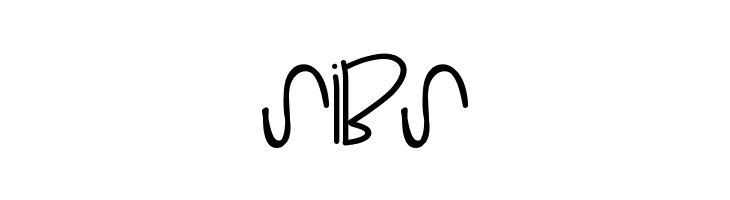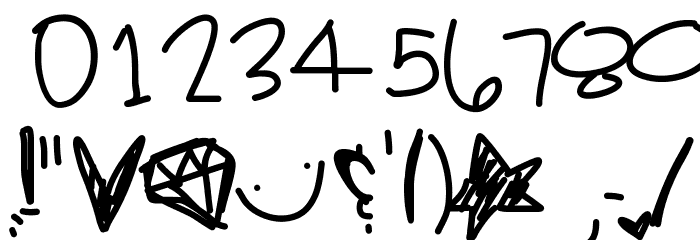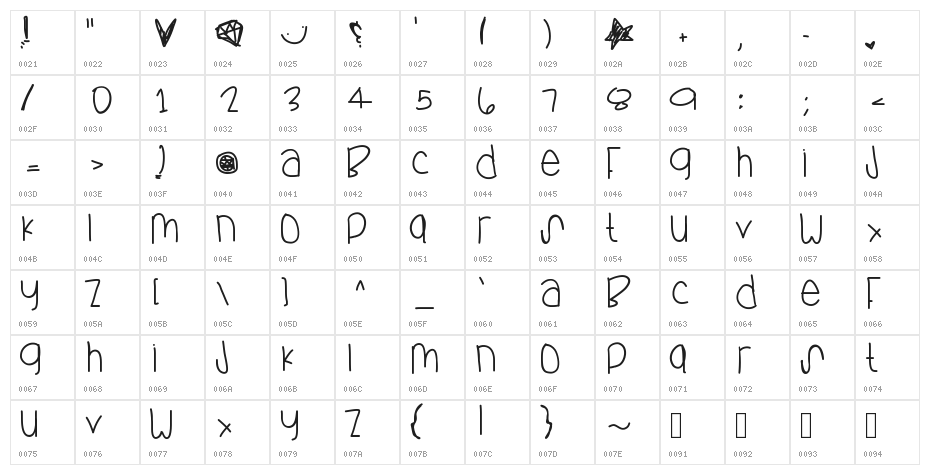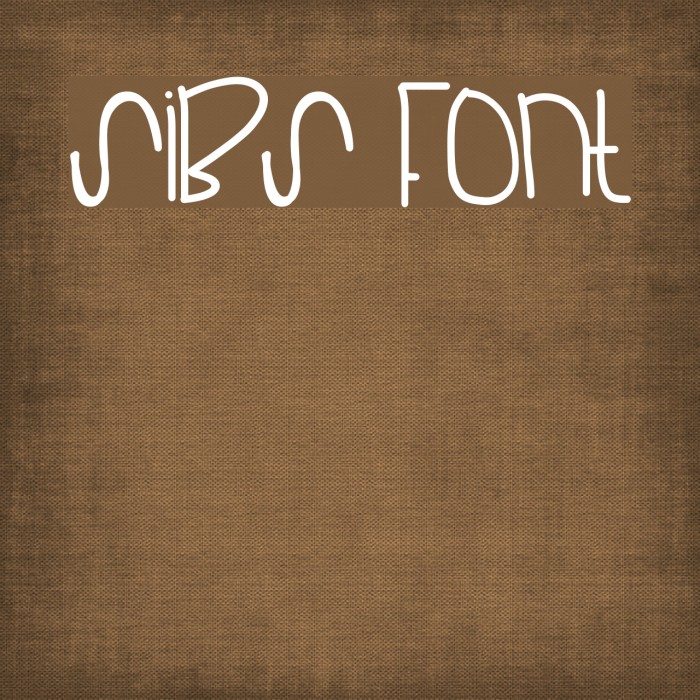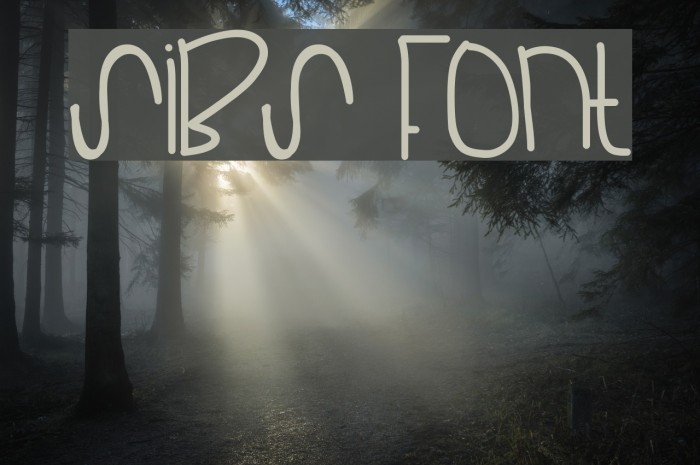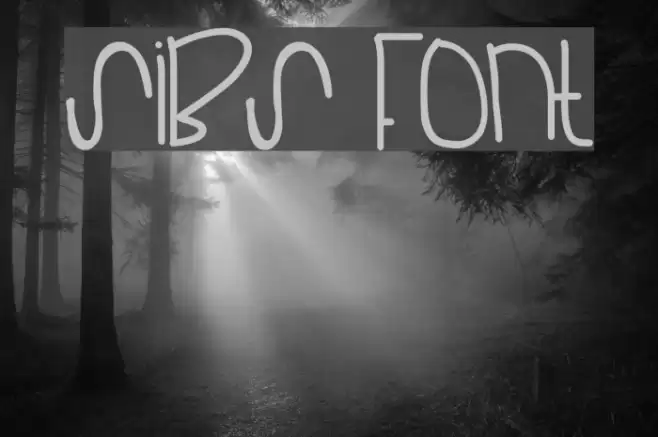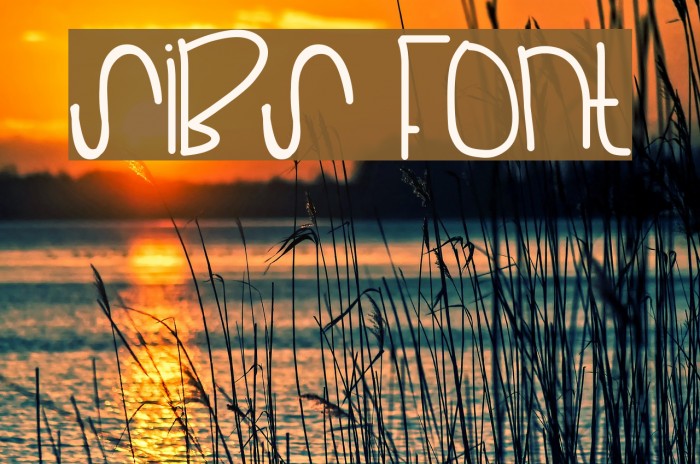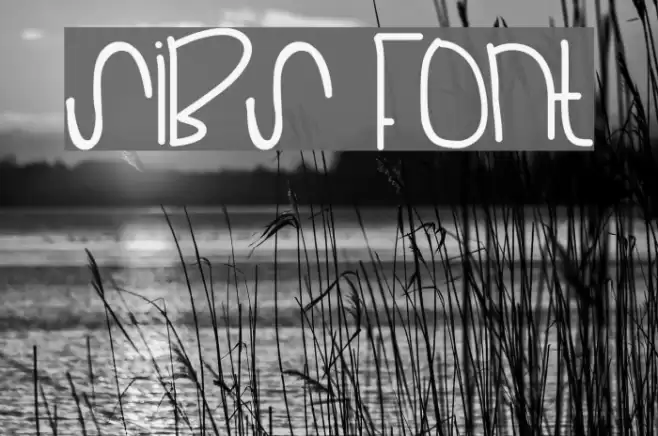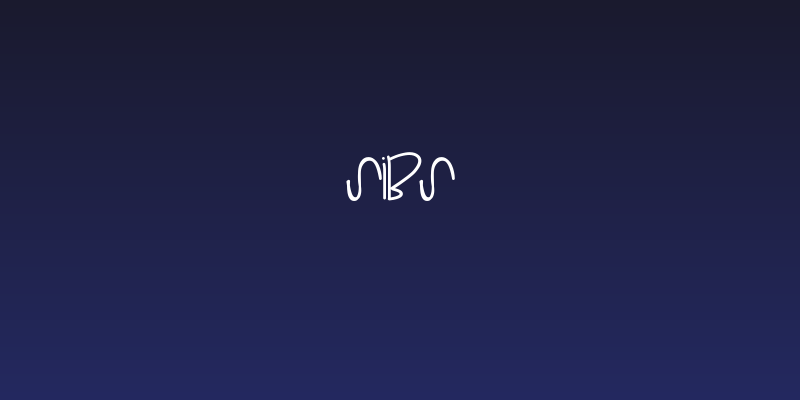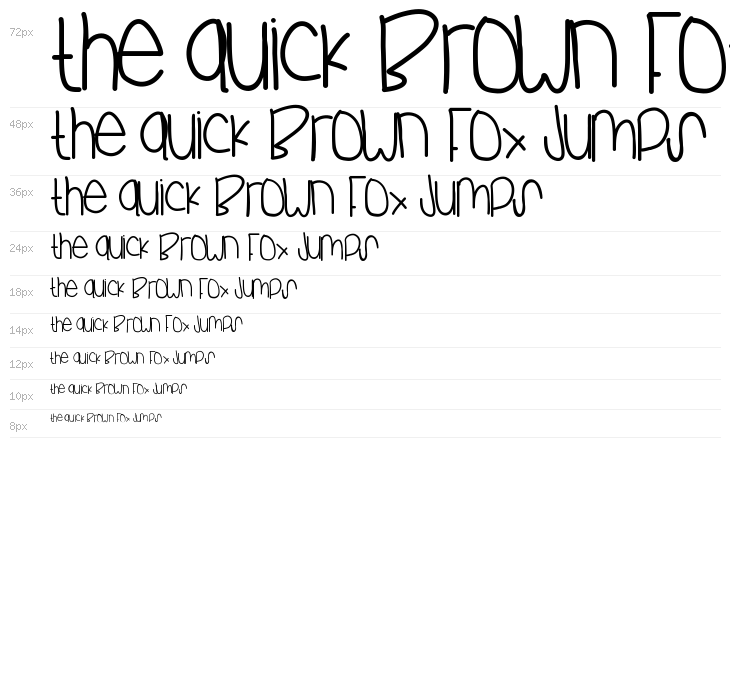
Sibs Font
Sibs Description
This playful and whimsical font features a handwritten style with a casual and informal appearance. The characters are rounded and slightly uneven, giving it a friendly and approachable feel. The uppercase and lowercase letters maintain a consistent height, while the numbers and special characters complement the overall style with their quirky designs. The font's strokes are smooth and continuous, adding to its organic look. It's perfect for projects that require a personal touch or a fun, lighthearted vibe.
| Proposed Projects | Ideal for greeting cards, children's books, playful branding, and social media graphics. |